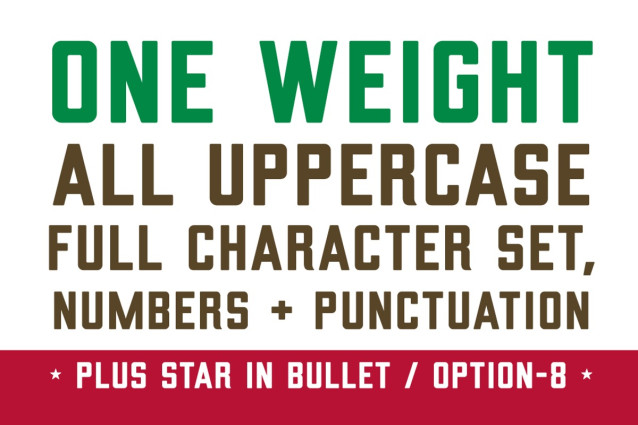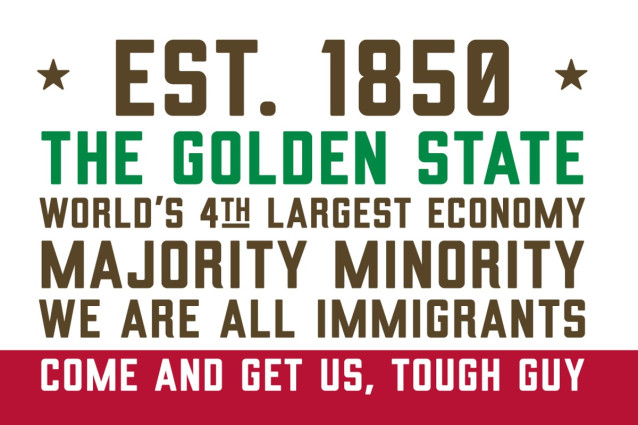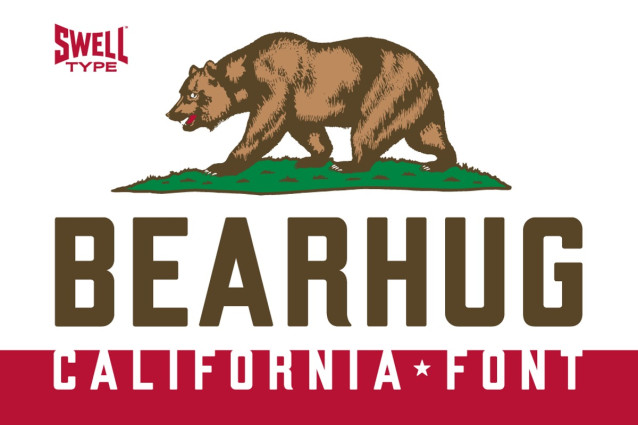
Bearhug Font
Bearhug Font – is a tall, bold, regular sans typeface, but with unique touches like the curved R serif and gently rounded corners. Bearhug includes numbers, punctuation, characters for 223 languages (because we speak them all here), and of course, asterisks!